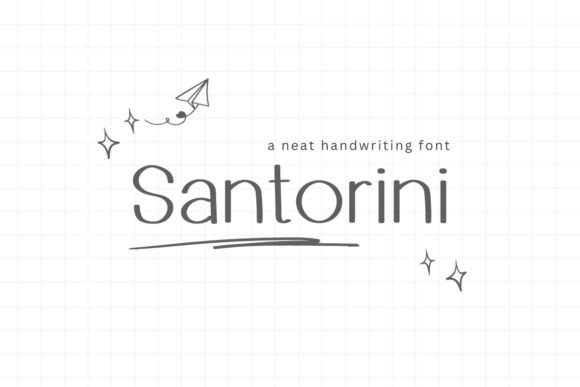
Santorini Font: The Epitome of Elegance and Romance
Santorini Font, a sans serif typeface, has captured the hearts of designers and typography enthusiasts alike with its delicate construction and chic aesthetic. This beautiful font is perfect for adding a touch of romance and sophistication to any design project. In this article, we’ll explore the features and uses of Santorini Font, and why it’s become a popular choice for designers looking to elevate their work.
Delicate Construction and Elegant Aesthetic
Santorini Font boasts a unique and elegant design, characterized by its delicate construction and subtle contrast between the skeleton of the glyphs. This distinctive feature gives the font its chic and sophisticated look, making it perfect for use in headlines and other high-impact design elements. The font’s sans serif design ensures that it remains clean and uncluttered, while its elegant aesthetic adds a touch of refinement to any design.
Ideal for Headlines and High-Impact Design
Santorini Font is specifically designed for use in headlines, making it perfect for a variety of design applications. Some of the ideal uses for this font include:
- Magazine covers: Add a touch of elegance and sophistication to your magazine covers with Santorini Font.
- Packaging design: Use Santorini Font to create eye-catching and luxurious packaging designs that stand out on store shelves.
- Perfume design: The elegant and refined aesthetic of Santorini Font makes it perfect for use in perfume branding and packaging.
- Cosmetics: Add a touch of glamour and sophistication to your cosmetics branding and packaging with Santorini Font.
Tips for Using Santorini Font
To get the most out of Santorini Font, here are a few tips to keep in mind:
- Use it confidently: Don’t be afraid to experiment with Santorini Font and use it in a variety of design applications.
- Pair it with other fonts: Santorini Font pairs well with a variety of other fonts, so don’t be afraid to experiment with different combinations.
- Adjust the size and style: Experiment with different sizes and styles to find the perfect look for your design.
The Benefits of Using Santorini Font
So why choose Santorini Font for your design projects? Here are just a few of the benefits of using this beautiful font:
- Elegant aesthetic: Santorini Font adds a touch of elegance and sophistication to any design.
- Versatile: Santorini Font can be used in a variety of design applications, from magazine covers to packaging design.
- Easy to read: Despite its elegant aesthetic, Santorini Font remains easy to read, even at smaller sizes.
Inspiration and Examples
To get a sense of the potential of Santorini Font, take a look at some examples of how it’s been used in design projects. From luxurious perfume branding to elegant magazine covers, Santorini Font has been used in a variety of creative and effective ways.
Santorini Font is a beautiful and elegant sans serif typeface that’s perfect for adding a touch of romance and sophistication to any design project. With its delicate construction and chic aesthetic, it’s ideal for use in headlines and other high-impact design elements. Whether you’re working on a magazine cover, packaging design, perfume branding, or cosmetics, Santorini Font is a great choice.